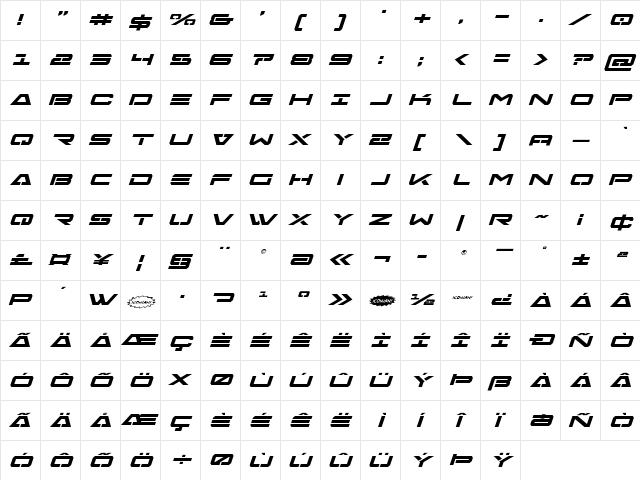
Free Agent Bold Expanded Italic Font Preview
Design Context for Free Agent Bold Expanded Italic Typeface
Free Agent Bold Expanded Italic takes a measured approach to typography — its balanced proportions and neutral character make it a reliable workhorse for both digital and print work. The slanted form adds forward momentum and visual energy. The heavy weight commands attention and anchors typographic hierarchies.
Pro Tip: Try Free Agent Bold Expanded Italic for annotation and caption copy alongside an upright companion — the contrast in angle creates a dynamic but ordered typographic system.